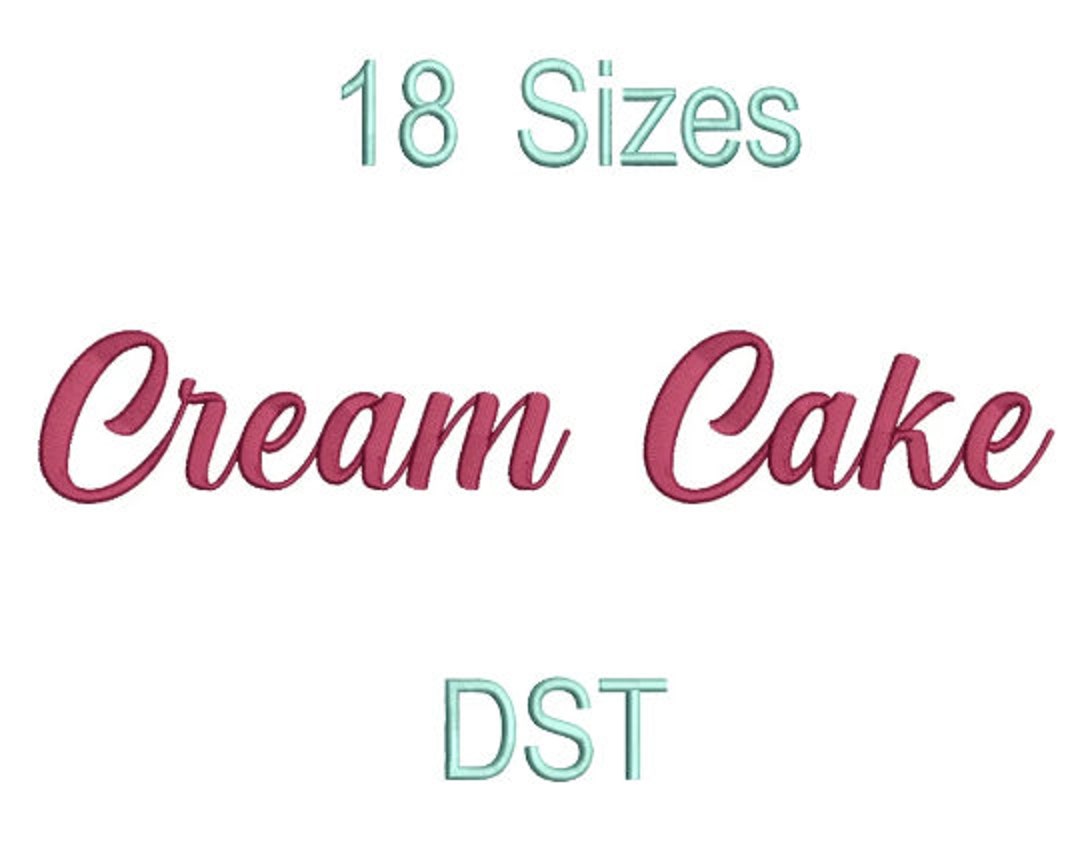
Cream Cake Font . The new styles of cream cake font are introduced to which the modern hand scratches are applied. Cream cake is a free font for personal use that features lowercase and uppercase, contextual alternates and ligatures. Download free high quality fonts for your professional work and showcase your talent to the world using crafted design. Cream cake is a bold calligraphy script font that is very well designed and has contextual alternates features so it can look like handwriting, perfect for your extraordinary projects. This site uses akismet to reduce spam. Cream cake font by ef studio 7,811 downloads. I hope this font will be suitable for you and can be easily and simply used for your work because it has a lot of features, containing a complete set of lower and upper case letters, matched punctuation and numbers and multilingual support. Cream cake font is a free script font published by the same author of this beautiful font “hello honey” which is designed by ef studio for. Cream cake font is free for personal use.
The new styles of cream cake font are introduced to which the modern hand scratches are applied. Cream cake font by ef studio 7,811 downloads. This site uses akismet to reduce spam. Cream cake font is a free script font published by the same author of this beautiful font “hello honey” which is designed by ef studio for. Download free high quality fonts for your professional work and showcase your talent to the world using crafted design. I hope this font will be suitable for you and can be easily and simply used for your work because it has a lot of features, containing a complete set of lower and upper case letters, matched punctuation and numbers and multilingual support. Cream cake font is free for personal use. Cream cake is a free font for personal use that features lowercase and uppercase, contextual alternates and ligatures. Cream cake is a bold calligraphy script font that is very well designed and has contextual alternates features so it can look like handwriting, perfect for your extraordinary projects.
Cream Cake Font Cream cake is a bold calligraphy script font that is very well designed and has contextual alternates features so it can look like handwriting, perfect for your extraordinary projects. This site uses akismet to reduce spam. Cream cake is a bold calligraphy script font that is very well designed and has contextual alternates features so it can look like handwriting, perfect for your extraordinary projects. Cream cake font is a free script font published by the same author of this beautiful font “hello honey” which is designed by ef studio for. Cream cake font by ef studio 7,811 downloads. I hope this font will be suitable for you and can be easily and simply used for your work because it has a lot of features, containing a complete set of lower and upper case letters, matched punctuation and numbers and multilingual support. Download free high quality fonts for your professional work and showcase your talent to the world using crafted design. Cream cake font is free for personal use. The new styles of cream cake font are introduced to which the modern hand scratches are applied. Cream cake is a free font for personal use that features lowercase and uppercase, contextual alternates and ligatures.
Cream Cake Fontdstcalligraphy Fontsmachine Etsy Cream Cake Font Cream cake font is free for personal use. I hope this font will be suitable for you and can be easily and simply used for your work because it has a lot of features, containing a complete set of lower and upper case letters, matched punctuation and numbers and multilingual support. The new styles of cream cake font are introduced. Cream Cake Font.
Cream Cake Font Cream cake font is a free script font published by the same author of this beautiful font “hello honey” which is designed by ef studio for. Cream cake font by ef studio 7,811 downloads. I hope this font will be suitable for you and can be easily and simply used for your work because it has a lot of features,. Cream Cake Font.
Cream Cake Font Free Download Cream Cake Font Cream cake font is a free script font published by the same author of this beautiful font “hello honey” which is designed by ef studio for. I hope this font will be suitable for you and can be easily and simply used for your work because it has a lot of features, containing a complete set of lower and upper. Cream Cake Font.
Cream Cake Font Cream cake font is free for personal use. Cream cake font is a free script font published by the same author of this beautiful font “hello honey” which is designed by ef studio for. Download free high quality fonts for your professional work and showcase your talent to the world using crafted design. The new styles of cream cake font. Cream Cake Font.
Cream Cake Font Free Download Cream Cake Font Cream cake font is a free script font published by the same author of this beautiful font “hello honey” which is designed by ef studio for. Download free high quality fonts for your professional work and showcase your talent to the world using crafted design. The new styles of cream cake font are introduced to which the modern hand scratches. Cream Cake Font.
Cream Cake Font The new styles of cream cake font are introduced to which the modern hand scratches are applied. Cream cake font is a free script font published by the same author of this beautiful font “hello honey” which is designed by ef studio for. Cream cake font is free for personal use. Download free high quality fonts for your professional work. Cream Cake Font.
Cream Cake Font Dafont Free Cream Cake Font Cream cake is a bold calligraphy script font that is very well designed and has contextual alternates features so it can look like handwriting, perfect for your extraordinary projects. Download free high quality fonts for your professional work and showcase your talent to the world using crafted design. Cream cake font is a free script font published by the same. Cream Cake Font.
Cream Cake Font This site uses akismet to reduce spam. Cream cake font is a free script font published by the same author of this beautiful font “hello honey” which is designed by ef studio for. The new styles of cream cake font are introduced to which the modern hand scratches are applied. I hope this font will be suitable for you and. Cream Cake Font.
Cream Cake Font I hope this font will be suitable for you and can be easily and simply used for your work because it has a lot of features, containing a complete set of lower and upper case letters, matched punctuation and numbers and multilingual support. Download free high quality fonts for your professional work and showcase your talent to the world using. Cream Cake Font.
Cream Cake Font Cream cake font is a free script font published by the same author of this beautiful font “hello honey” which is designed by ef studio for. Cream cake is a bold calligraphy script font that is very well designed and has contextual alternates features so it can look like handwriting, perfect for your extraordinary projects. This site uses akismet to. Cream Cake Font.
Cream Cake Free Font Bold script font, Best script fonts, Script fonts Cream Cake Font This site uses akismet to reduce spam. Cream cake font is free for personal use. I hope this font will be suitable for you and can be easily and simply used for your work because it has a lot of features, containing a complete set of lower and upper case letters, matched punctuation and numbers and multilingual support. Cream cake. Cream Cake Font.